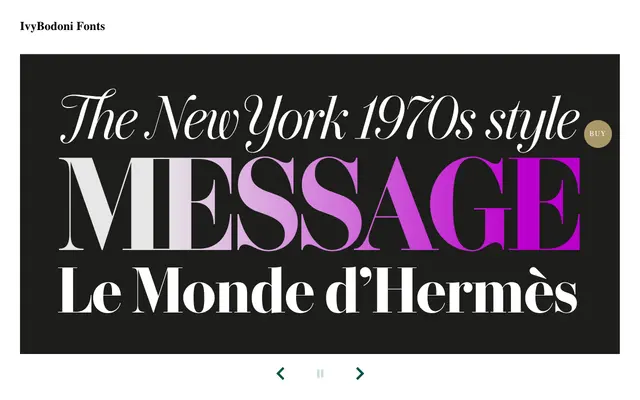
IvyBodoni
A 21st-century Bodoni drawn by Jan Maack with crisp hairlines and ball terminals, informed by mid-century display faces such as Pistilli Roman and CBS Didot.
Designed with fashion and editorial typography in mind, IvyBodoni takes its cues from the high-contrast modern serifs of the 1960s and 1970s, along with lettering artists Mortimer Leach and Tommy Thompson. The family spans six weights from Thin to Bold across standard and condensed widths, with matching italics and two variable fonts covering both weight and width axes. OpenType features include old-style numerals, discretionary ligatures and multiple stylistic sets.
IvyBodoni is a modern serif in the Bodoni/Didone tradition, characterised by extreme stroke contrast, crisp hairlines, ball terminals and precise curves drawn in homage to mid-century display designs such as Pistilli Roman and CBS Didot.